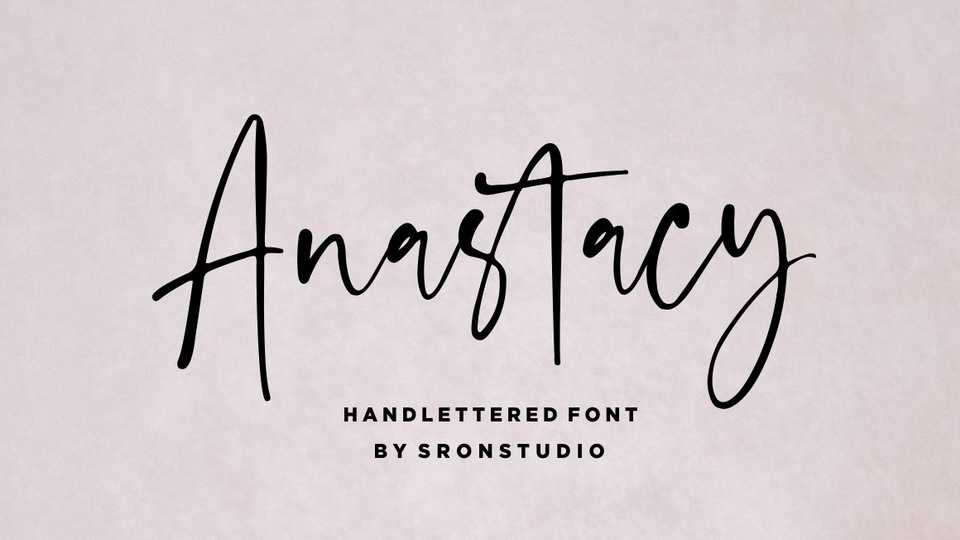
Download Anastacy font, a stylish natural handwritten script. Anastacy is perfect for logo, invitation, stationery, wedding designs, social media posts, advertisements, product packaging, product designs, label, photography, watermark, special events or anything.